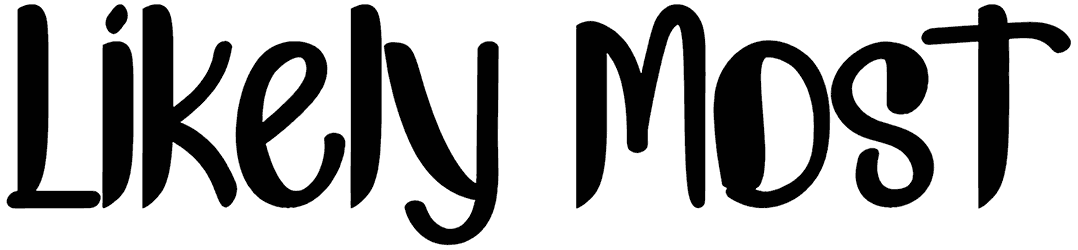
Likely Most Font
To make your readers intimate with your content, you need to make a connection with them, and nothing can do it better than Likely Most. This handwritten font with a funny and cozy face would be perfect for postcards, business cards, invitations, and gift wrapping.